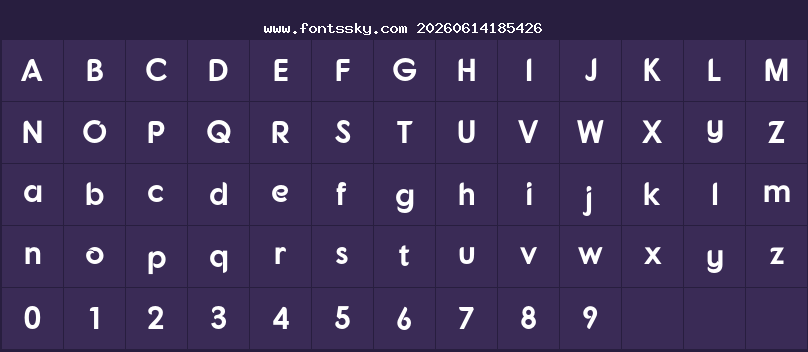
Fonarto Preview
• Font Name: Fonarto
• Full Font Name: Fonarto-Regular
• Designer: Arwan Sutanto
• Manufacturer: Locomotype
About Fonarto.otf
Fonarto.otf is a modern, elegant sans-serif font designed for ultimate readability and visual harmony. Perfect for branding, headlines, web design, and print materials.